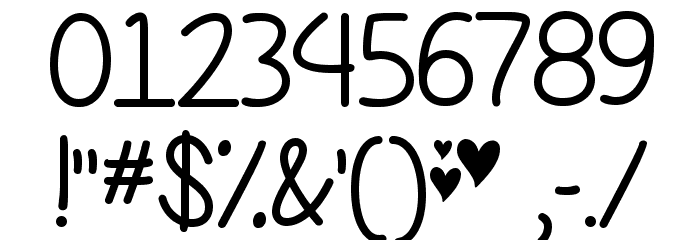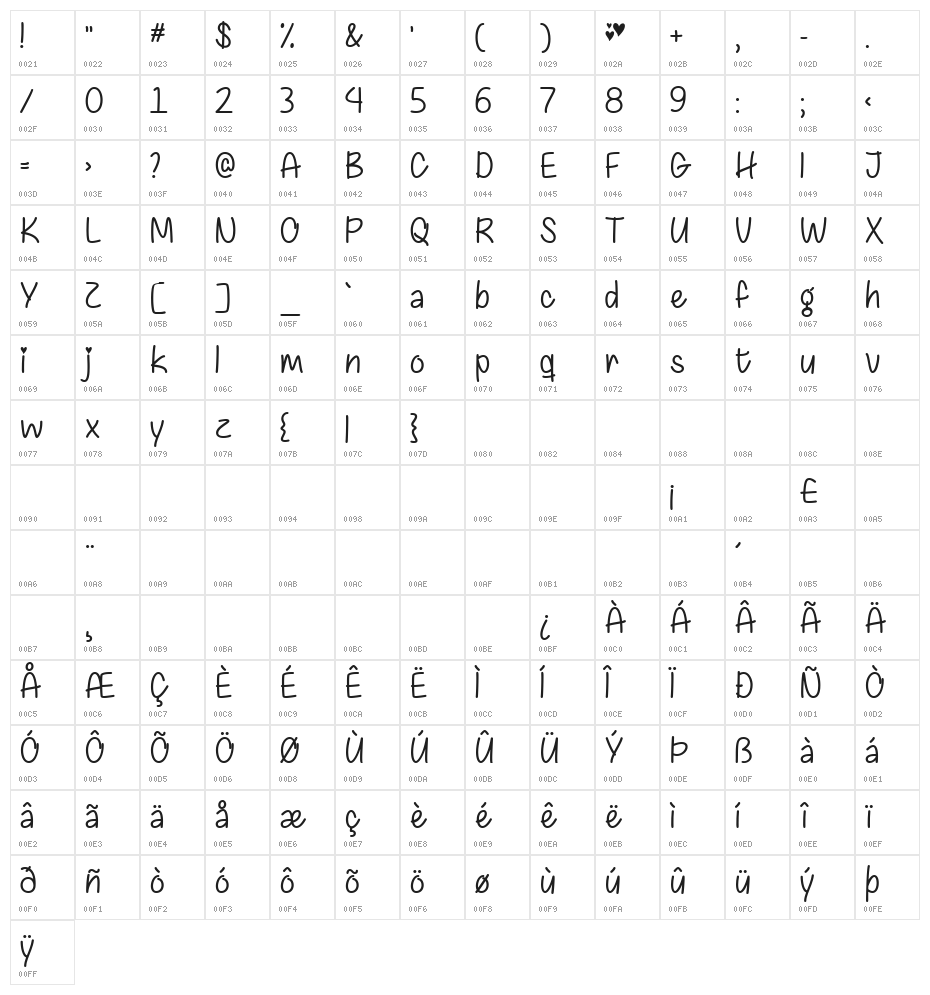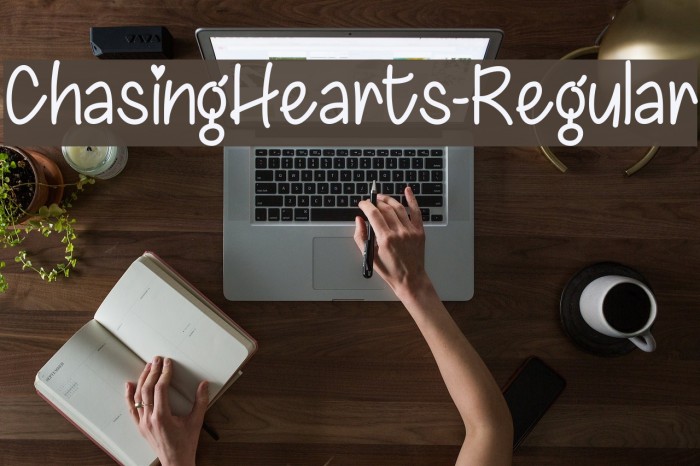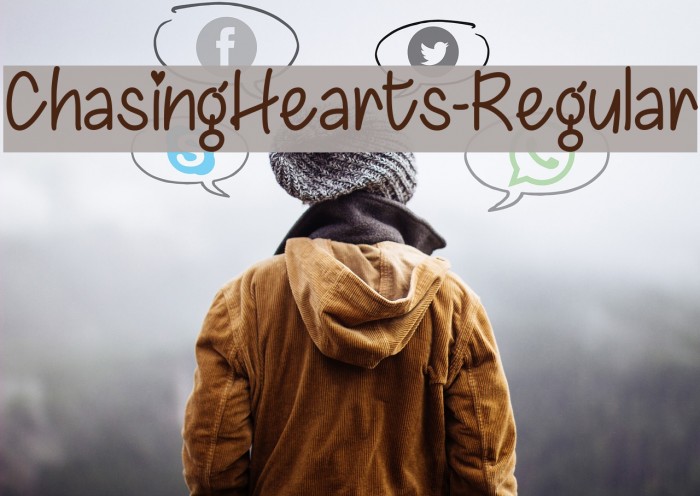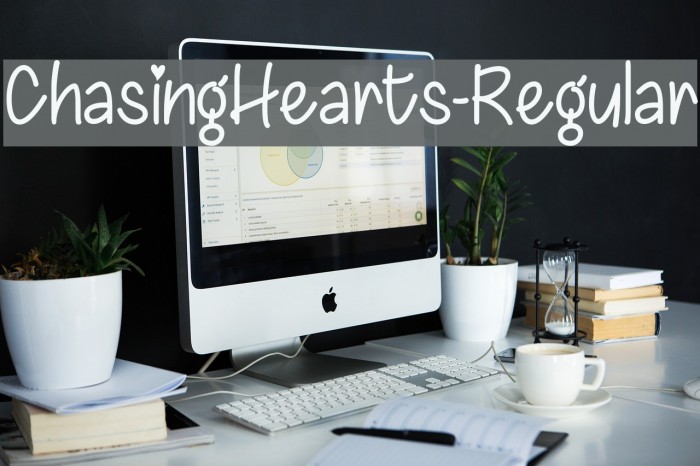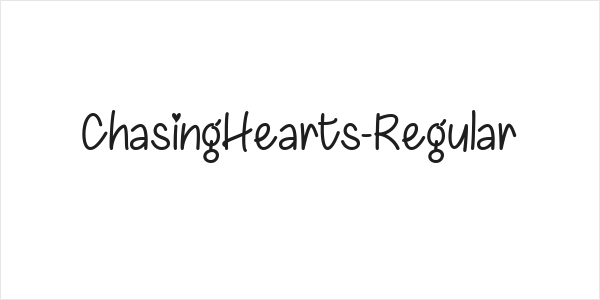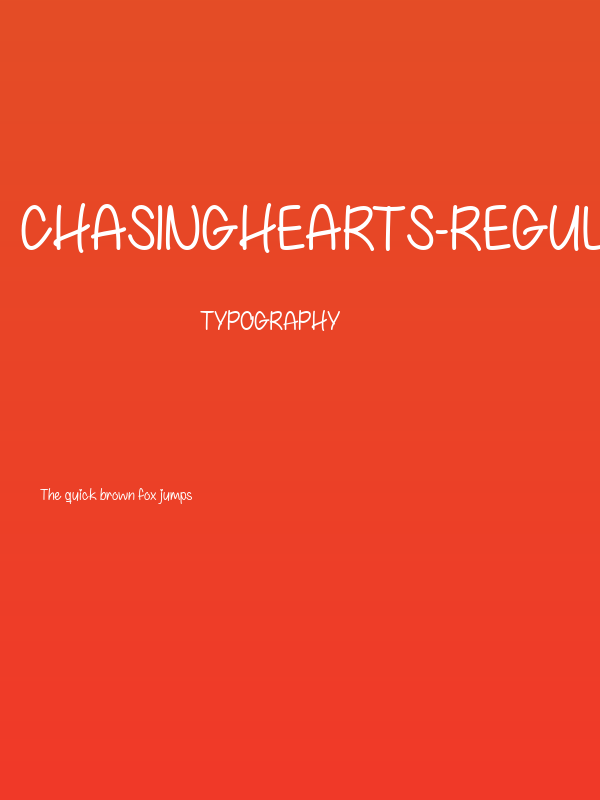
ChasingHearts-Regular Font
ChasingHearts-Regular Description
This playful and whimsical font features a handwritten style with a casual and friendly appearance. The characters are rounded and slightly irregular, giving it a personal touch. Unique heart-shaped accents are incorporated into certain letters, adding a charming and romantic flair. The font maintains a consistent stroke width, contributing to its legibility while retaining a playful aesthetic. It is well-suited for creative projects that require a touch of personality and warmth.